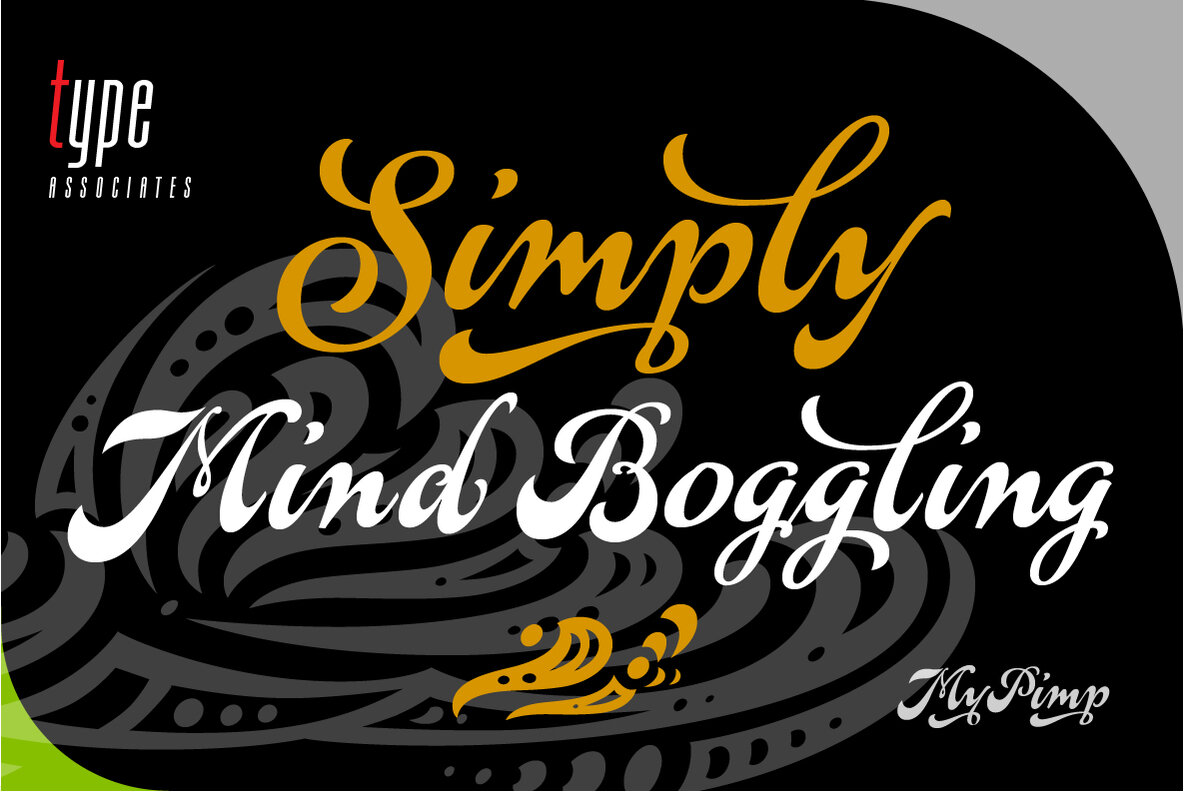
MyPimp Font
MyPimp
The concept of a bold connected script with a hand-lettered feel has been on my bucket-list for decades. I imagined a pretentious, ornate, swashy look, a variety of word-end embellishments, heaps of ligatures and underscores. It took a weekend workshop on Python Scripting at Type@Cooper in San Francisco to reinforce the smarts of Opentype to make it happen. Hand-drawn on paper using pen strokes for reference, the design was the easy part. The real work was in the back-end and the rigorous testing that followed. This is a display typeface intended for greeting cards, logos, signage and poster headings.